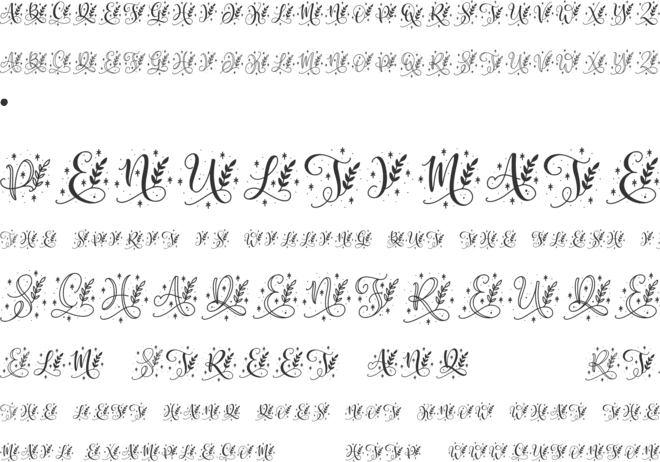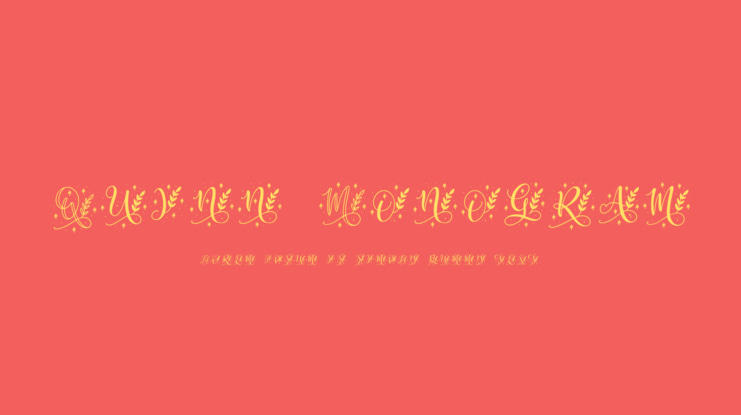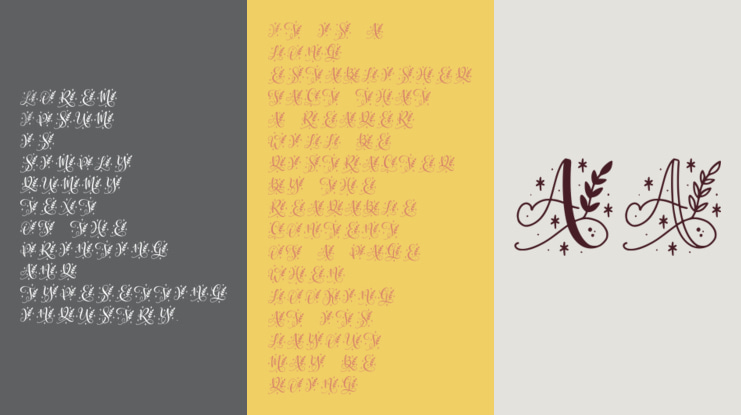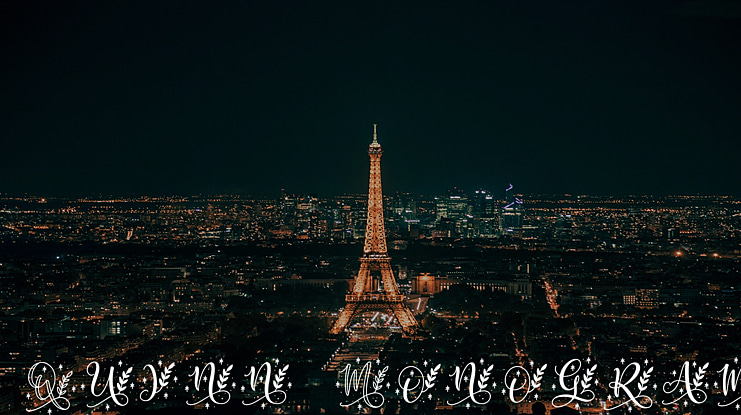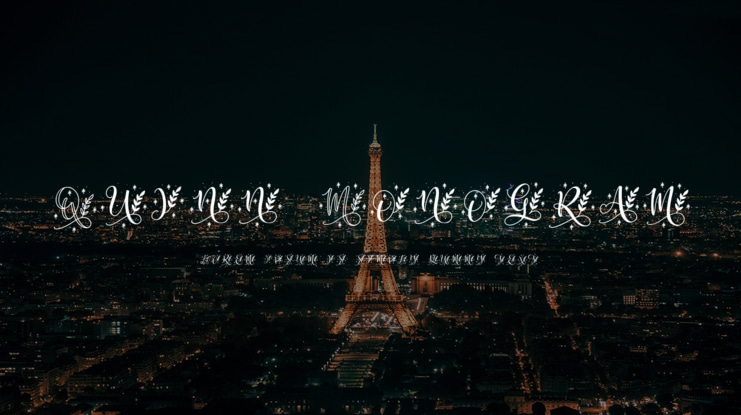
Quinn Monogram Font
QUINN MONOGRAM - The Snowy Monogram -
Quinn Monogram is a unique and festive decorative font. Use it to make your ideas even more realistic and create spectacular designs!